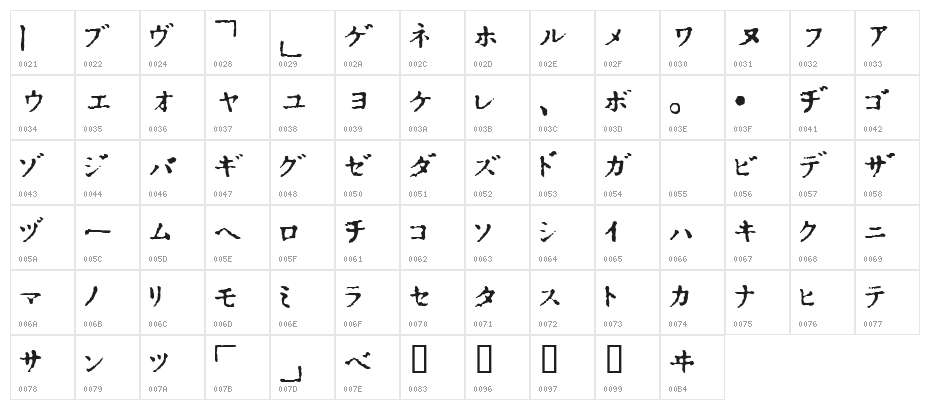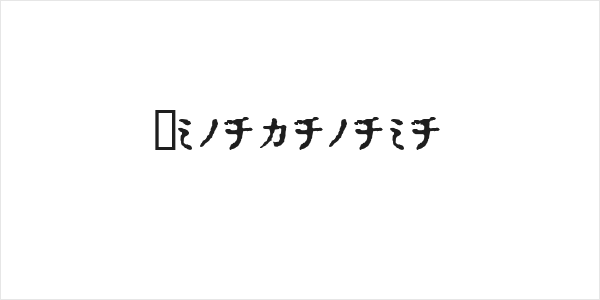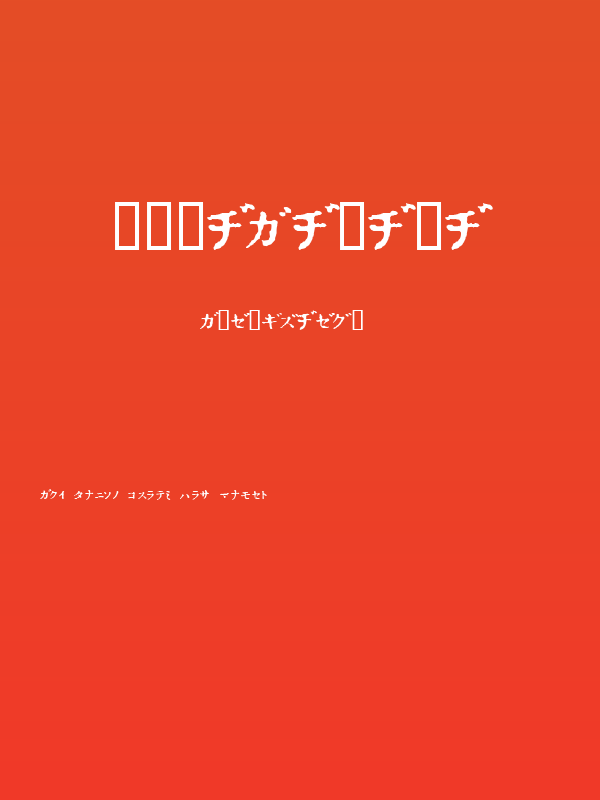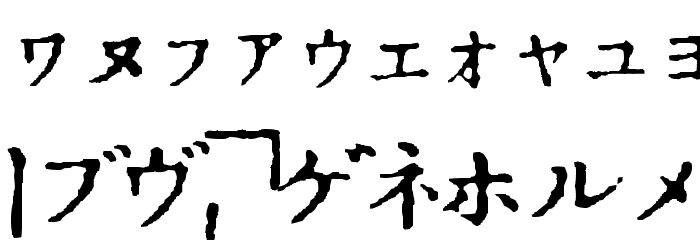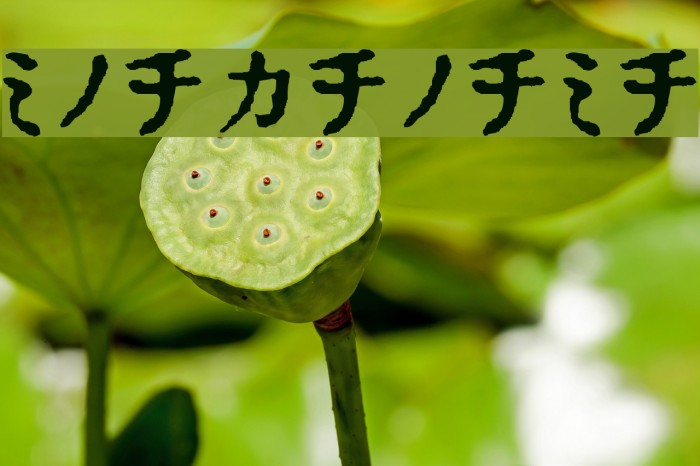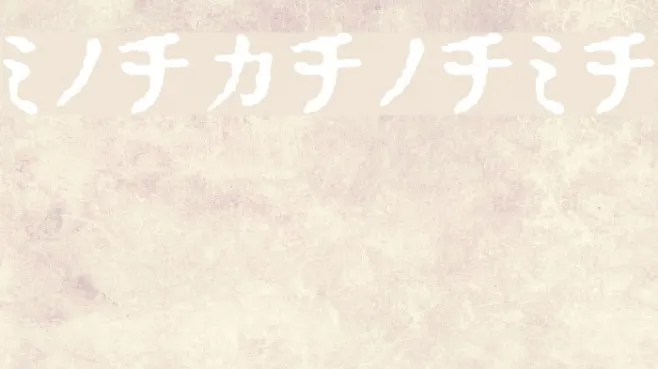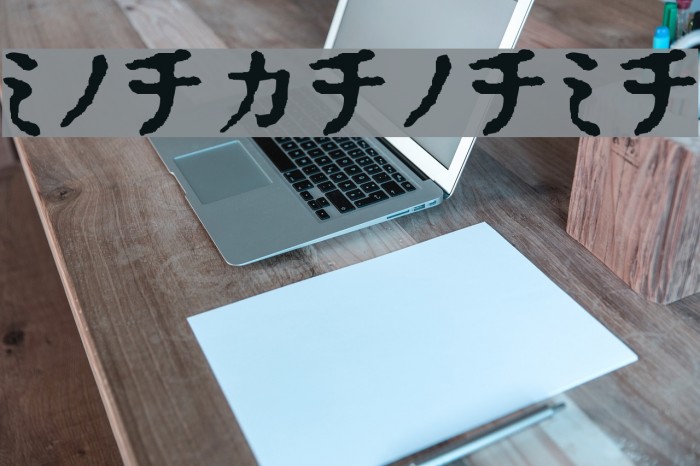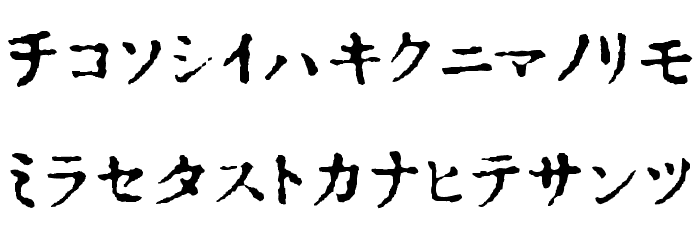
Inkatakana Font
Inkatakana Description
This font features a bold and expressive style, reminiscent of traditional Japanese calligraphy. The strokes are dynamic and fluid, with a hand-drawn appearance that adds a sense of authenticity and cultural richness. Each character is crafted with varying stroke thickness, creating a lively and organic texture. The characters are slightly irregular, enhancing the handcrafted feel. This font is ideal for projects that aim to evoke a sense of tradition and artistry, making it suitable for cultural or artistic themes. The overall design is both striking and elegant, capturing the essence of Japanese script with a modern twist.
| Overall Style | Traditional, Artistic |
| Proposed Projects | Ideal for cultural projects, artistic designs, branding, and signage that require a traditional yet modern Japanese aesthetic. |